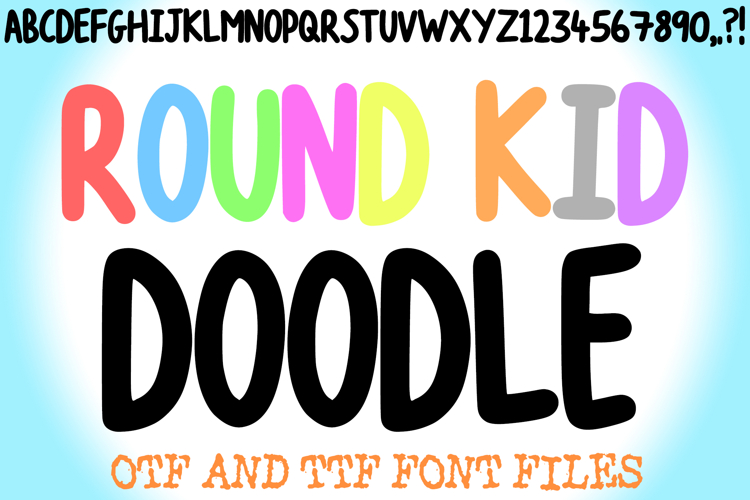
Round Kid Doodle Handwriting Alphabet Lettering ABC Font
Infuse your designs with childlike charm using Round Kid Doodle Font! This adorable typeface captures the whimsical, hand-drawn feel of happy doodles by a child. It's an instant dose of joy, perfect for projects needing a lovable, inviting touch for young audiences.
With plump, rounded strokes and clear, bubbly forms, it's ideal for children's books, nursery decor, playful branding, greeting cards, educational materials, and more. Bring fun, originality, and a handmade aesthetic to your work. If you want playful wonder and charming authenticity for kids' designs, Round Kid Doodle Font is your tool. Doodle delightful designs!